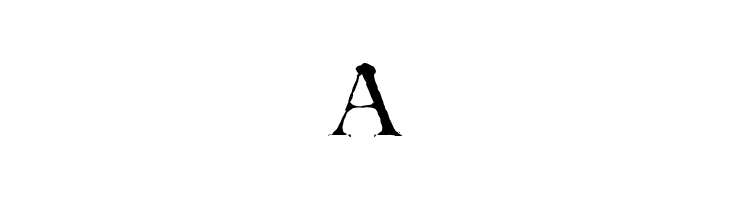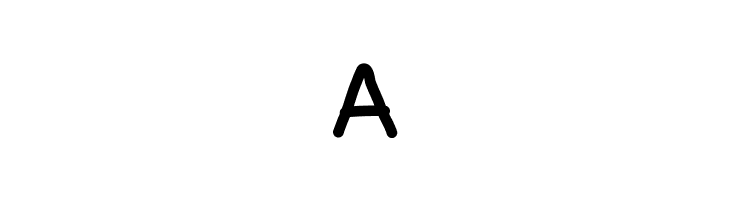
A playful, handwritten font with rounded, bold characters and a casual style.
A bold, modern font with clean lines and a touch of elegance.
A playful, informal handwritten font with bold, dynamic strokes.
A playful, casual handwritten font with rounded edges and consistent stroke width.
A playful handwritten font with smooth curves and a friendly appearance.
A modern, geometric sans-serif font with clean lines and uniform thickness.
An ultra-thin, modern font with elongated, sleek characters.
A sleek, modern font with thin, elongated letterforms and a geometric structure.
A modern, geometric font with clean lines and a wide stance.
A raw, edgy font with jagged strokes and a graffiti-like aesthetic.
A modern, bold sans-serif font with geometric influences and high legibility.
A modern, bold font with a backslant and geometric design.
A sleek, modern italic font with medium weight and smooth curves.
A modern sans-serif font with bold, uniform strokes and a clean, geometric design.
A bold, backslant sans-serif font with a modern and dynamic style.
A modern, italic font with clean lines and a dynamic appearance.
A bold, modern font with a wide, geometric design.
A wide, medium-weight font with a distinctive backslant, perfect for modern designs.
A modern, wide, medium-weight italic font with a sleek design.
A geometric, outlined font with a futuristic and modern aesthetic.
A geometric, outlined font with a futuristic and mechanical style.
A bold, geometric stencil font with a modern, industrial aesthetic.
A classic serif font with calligraphic influences and elegant, irregular strokes.
An elegant script font with flowing, connected strokes and ornate flourishes.
Playful handwritten script font.
An artistic serif outline font with a hand-drawn, elegant style.
A bold, expressive script font with flowing, cursive letters.
A bold, rounded font with a modern and playful style.
A bold, rounded, and italic font with a modern and playful style.
A modern, geometric font with clean lines and uniform stroke width.
A sleek, italicized font with a modern and dynamic style.